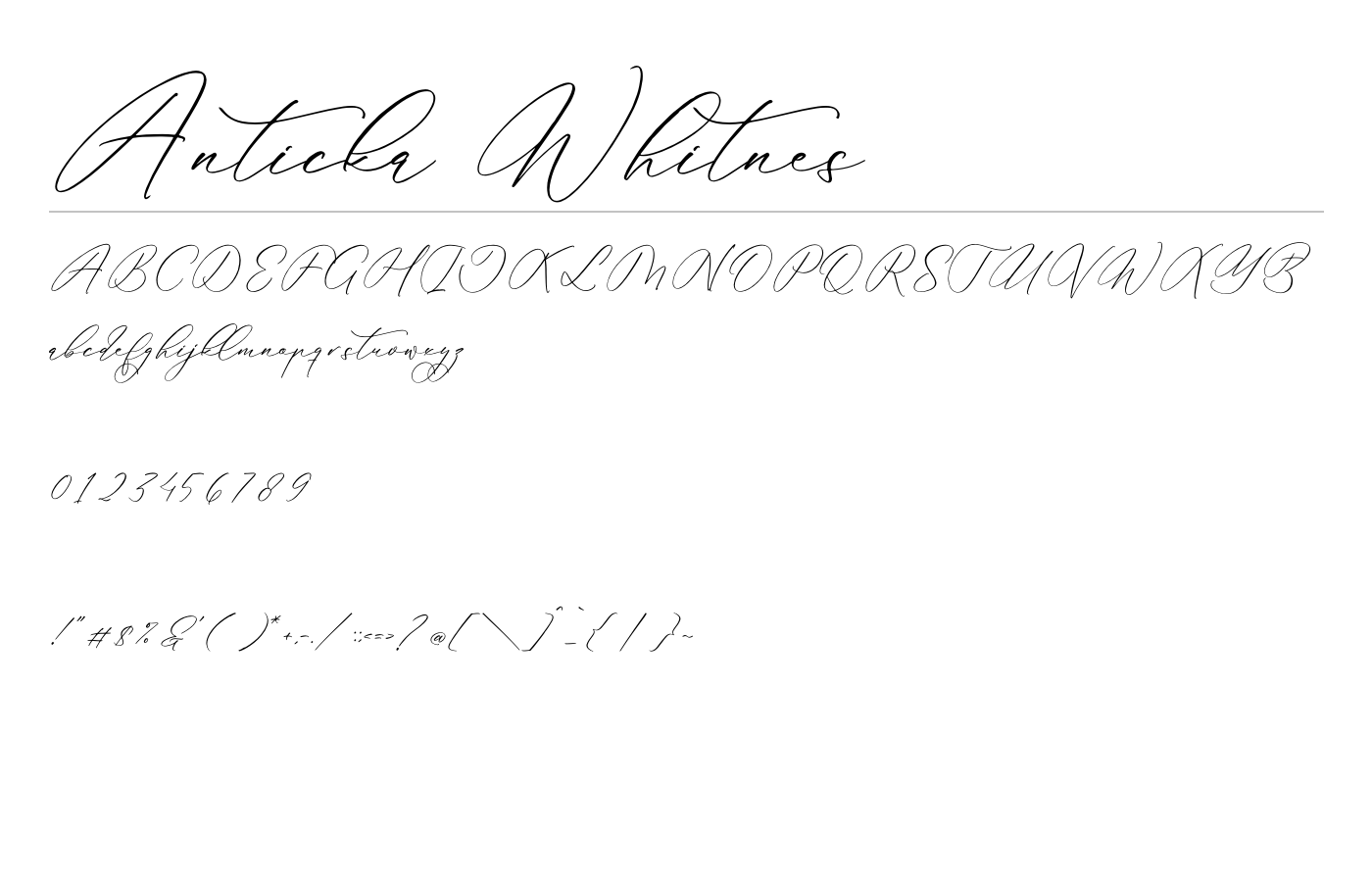
Anticka Whitnes is an elegant, lightweight script font characterized by its delicate, flowing strokes and refined calligraphic style. Its tall, slender letterforms with graceful loops and swashes evoke a sophisticated and romantic feel, making it ideal for luxury branding, wedding invitations, and upscale editorial projects. This font shines best in large-scale use like logos and headlines where its intricate details can truly stand out.
Anticka Whitnes Font
About Anticka Whitnes Font